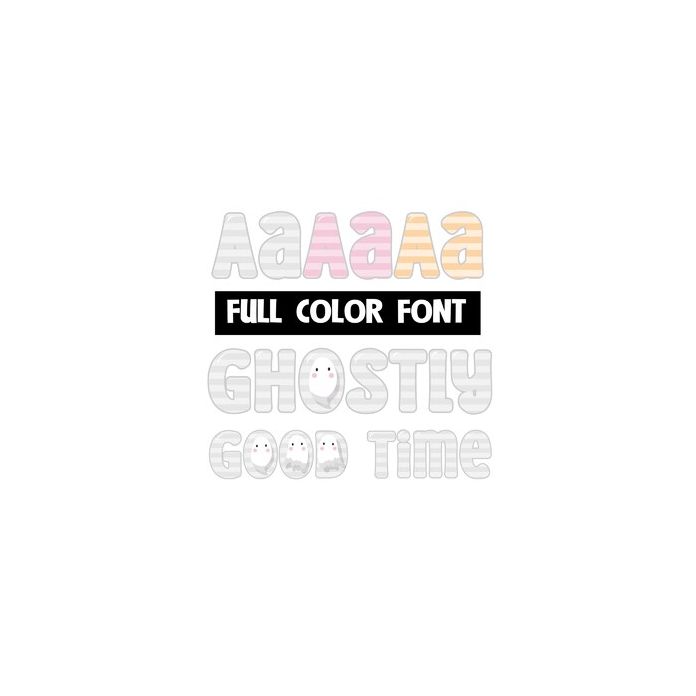
This full-color font features gray stripe lettering and a few ghosts. There is a second and third version of each upper and lowercase letter in a different color available through Silhouette's glyph map.